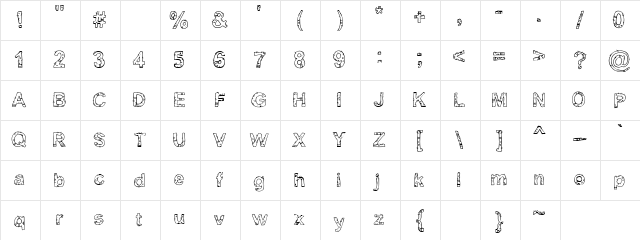
Yugly Regular
Design Context for Yugly
Yugly is a composed and adaptable typeface that performs quietly and consistently across a wide range of design contexts.